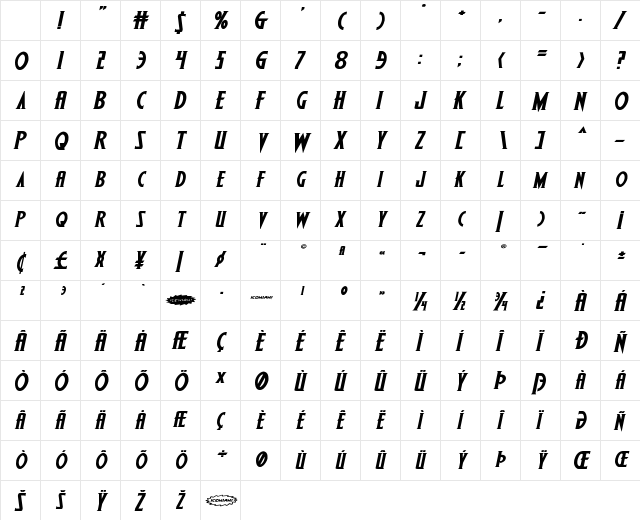
Complete Wolf's Bane II Expanded Italic glyph index. Displaying only characters natively supported by Wolf's Bane II Expanded Italic font.
Wolf's Bane II Expanded Italic is a composed and adaptable typeface that performs quietly and consistently across a wide range of design contexts. The slanted form adds forward momentum and visual energy.
Pro Tip: Use Wolf's Bane II Expanded Italic for emphasis, pull quotes, and subheadings where its slanted energy can add rhythm to the layout.